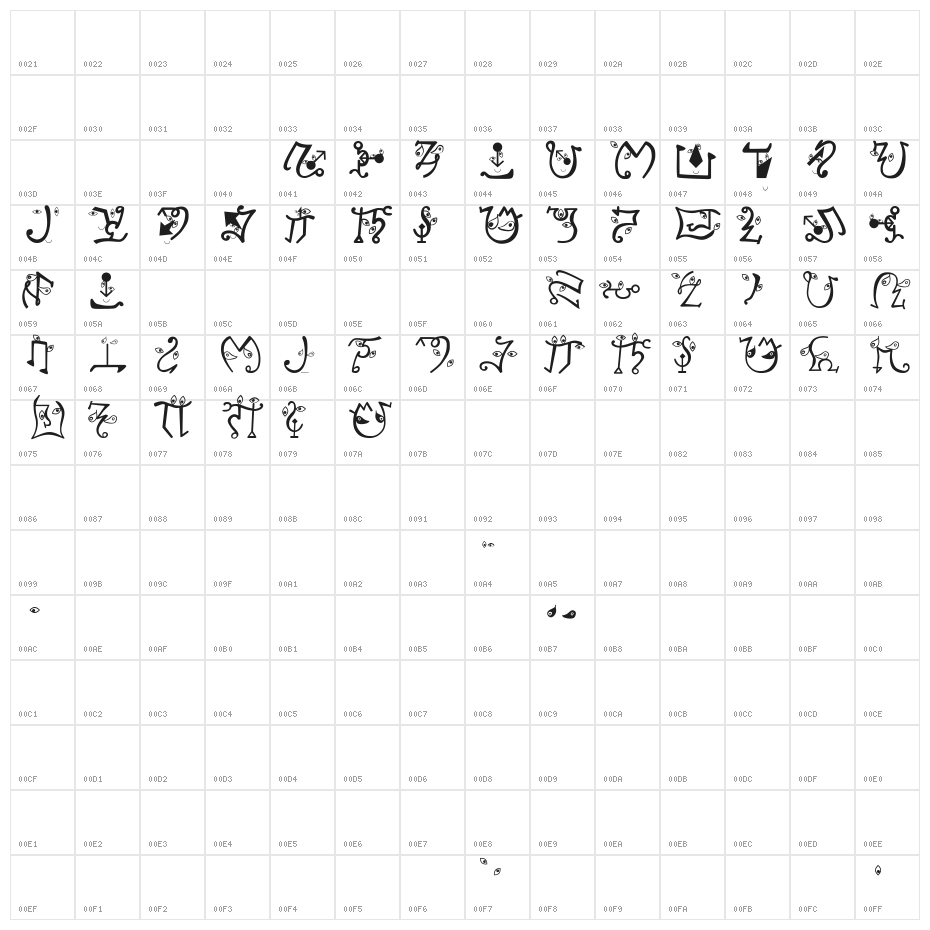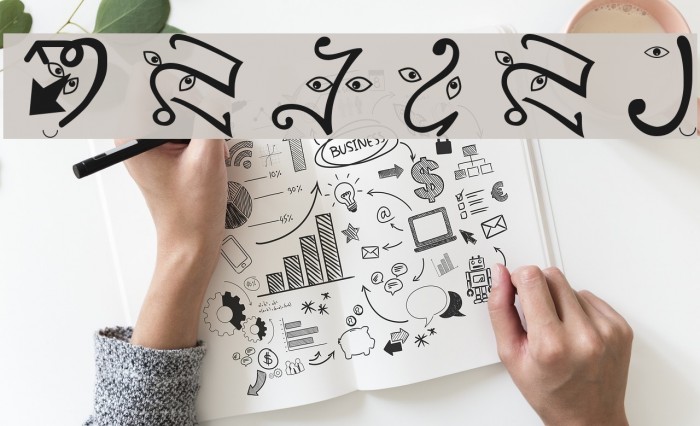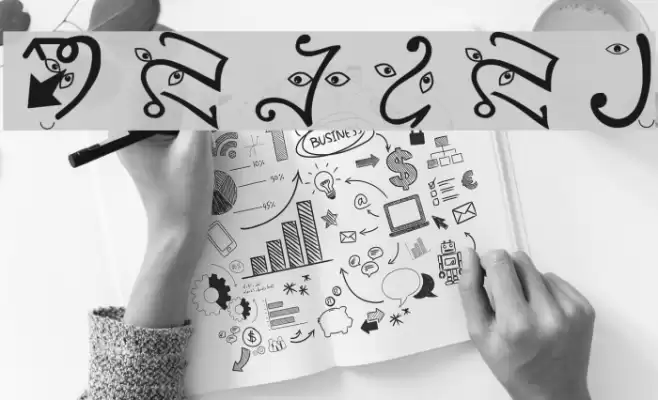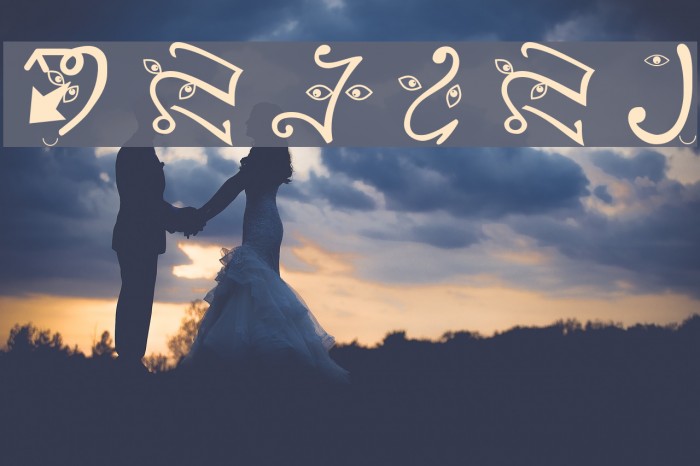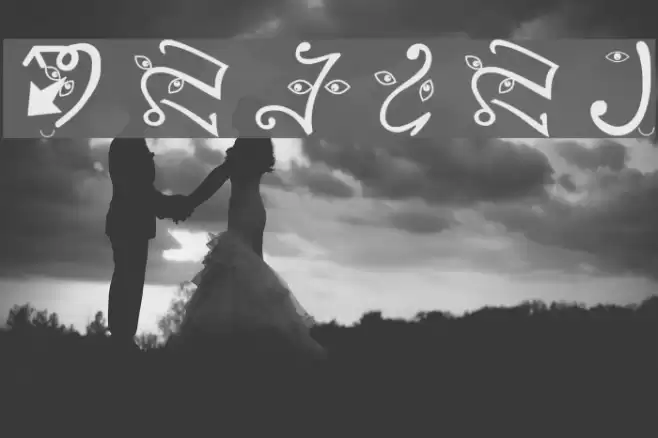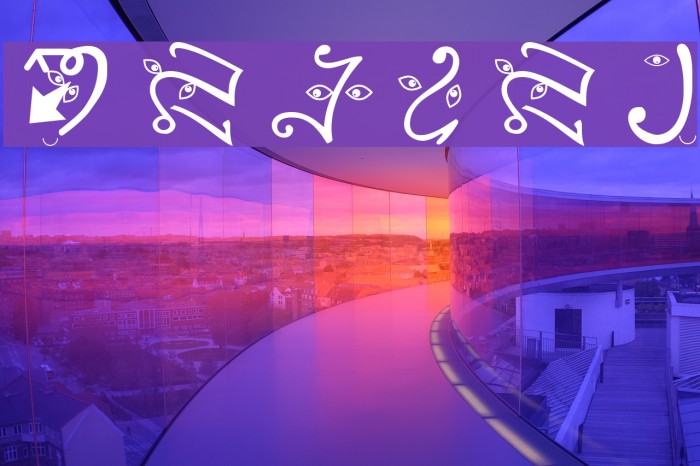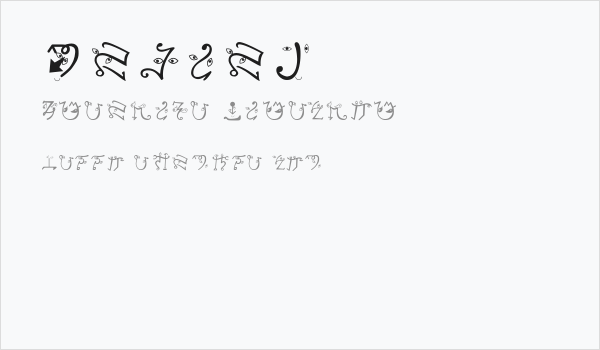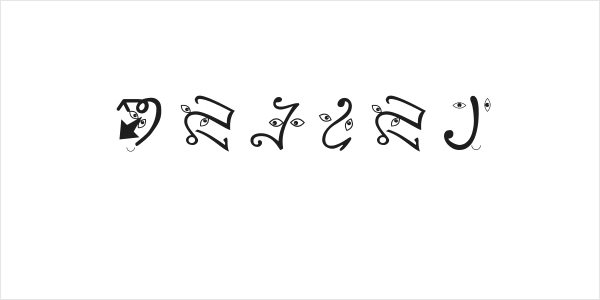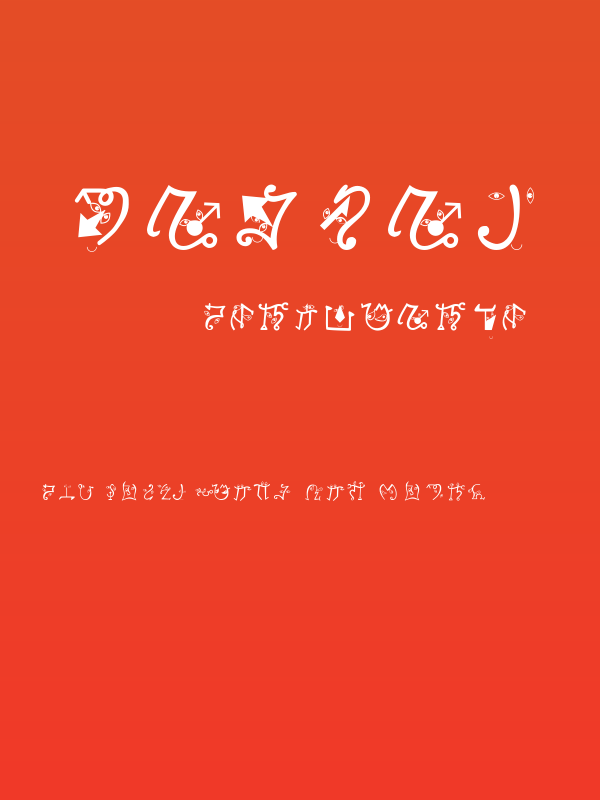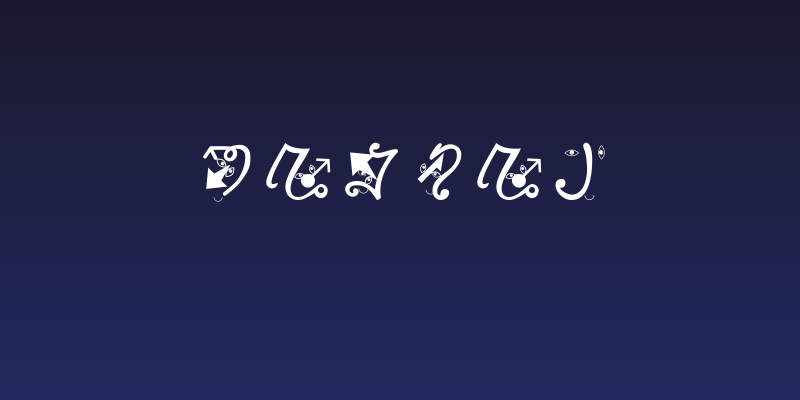
ManiaK Font
ManiaK Description
This font is a highly decorative and whimsical typeface, characterized by its intricate and playful design elements. Each character is adorned with unique embellishments, such as swirls, dots, and geometric shapes, giving it a fantastical and artistic appearance. The font features a mix of sharp and rounded edges, creating a dynamic visual contrast. Its elaborate style makes it stand out, capturing attention with its creative and imaginative flair. The characters are distinct and bold, with a moderate level of contrast in stroke thickness, which adds to its decorative appeal.
| Use Case | Logos, Posters, Invitations |
| Proposed Projects | Ideal for fantasy-themed projects, artistic posters, unique branding, and creative invitations. |